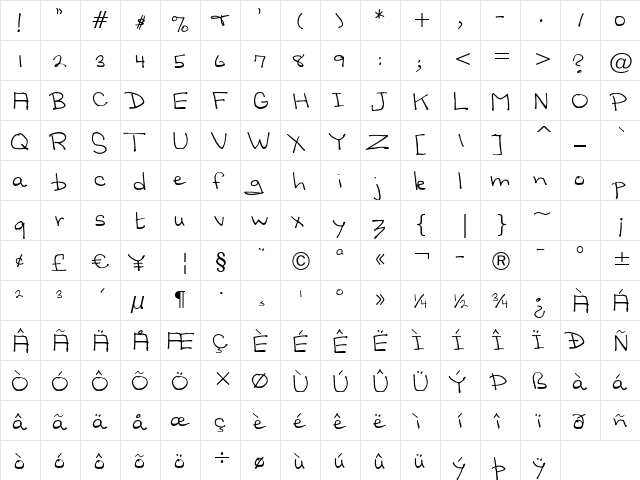
Sandscript BTN Regular
Design Context for Sandscript BTN Typeface
Sandscript BTN flows with the natural rhythm of handwritten lettering, making it ideal for designs that call for warmth and personal expression.